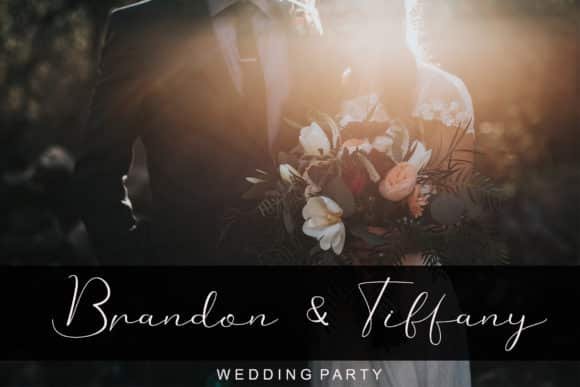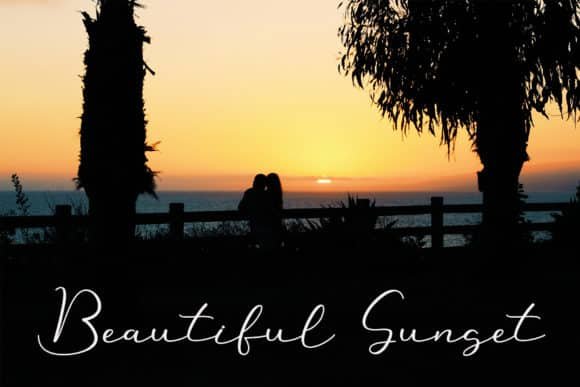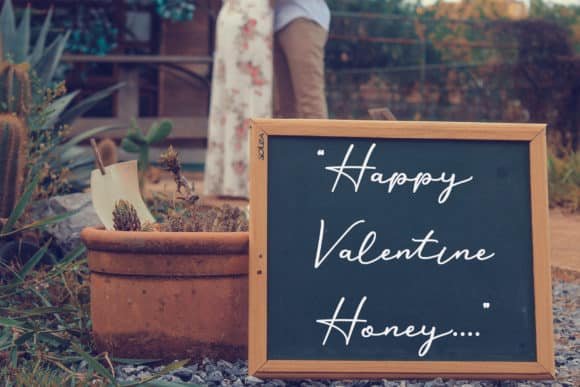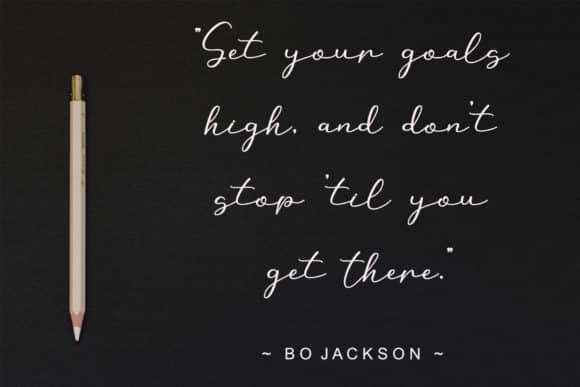
Geollitta Font
Geollitta is a unique and refined handwritten font. It looks lovely on a variety of designs requiring a personalized style, such as wedding invitations, thank you cards, weddings, greeting cards, logos and so on.